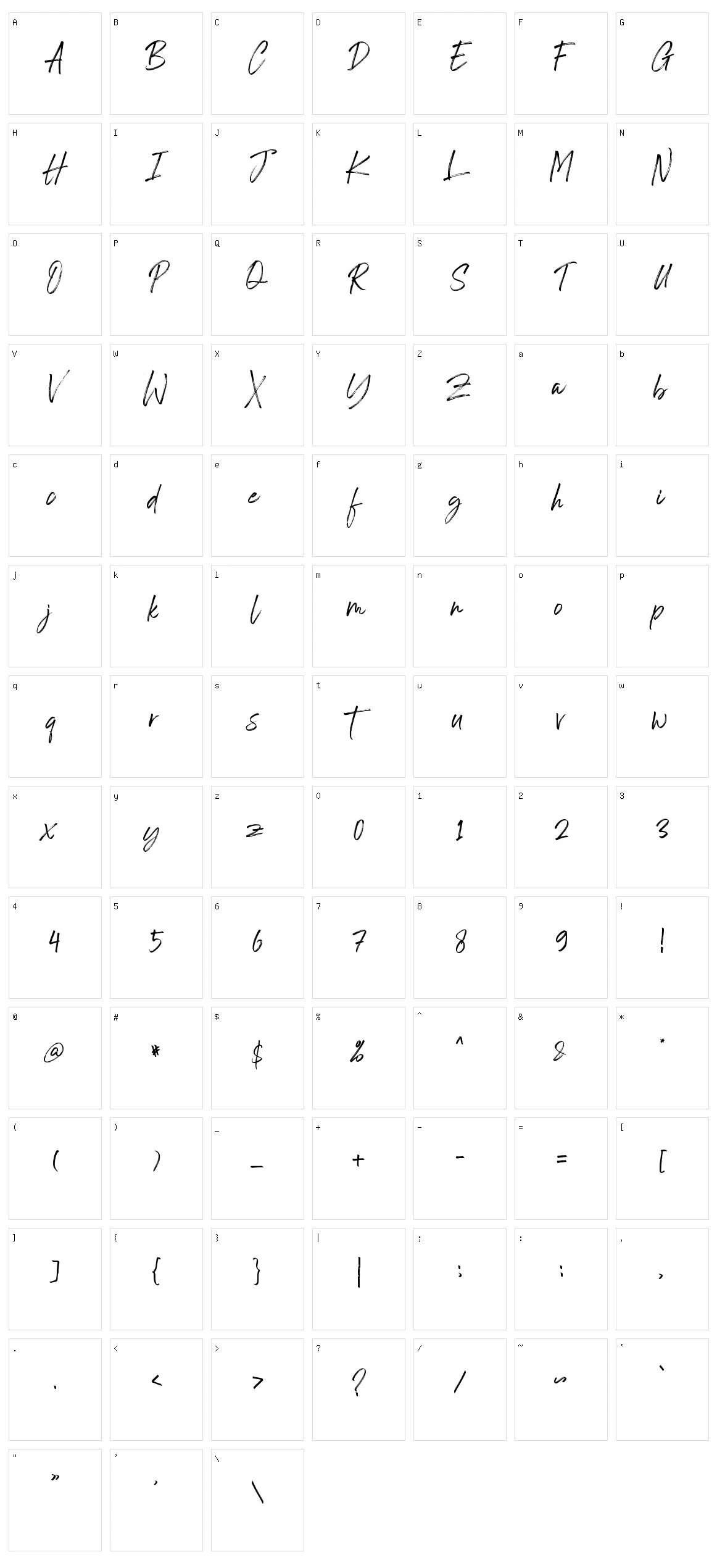
The free font Lestagine is carefully designed by AminMario, showcasing a thoughtful balance of creativity and usability and falls under the Script font style. When you download the ZIP file, it contains only 170.2 KB of font files, making it lightweight and quick to download. Please review the license details below to understand permitted usage and distribution rights. If license information is not available, we recommend using this font for personal projects only or contacting the author directly for commercial usage permissions.